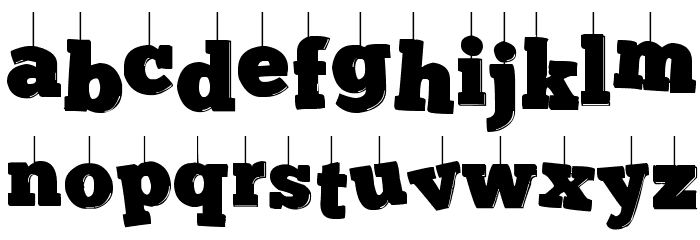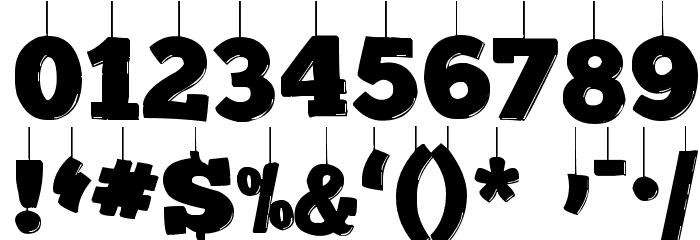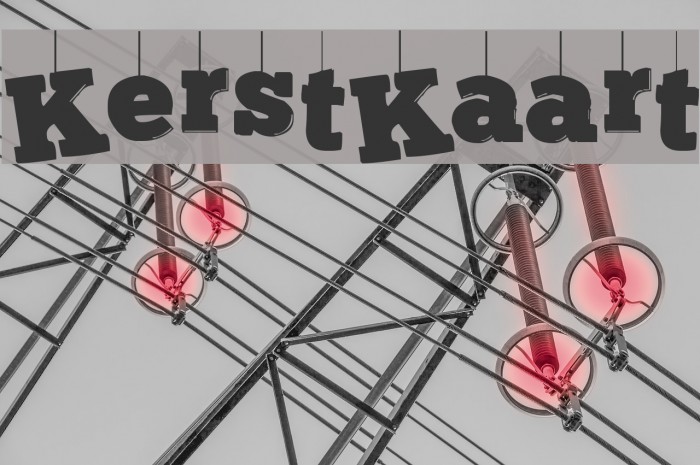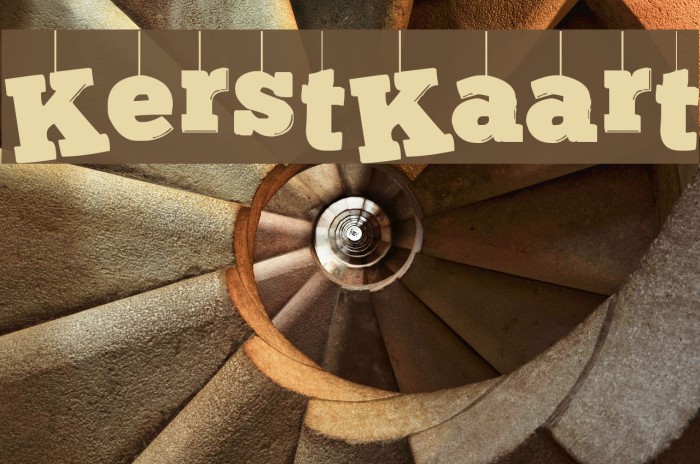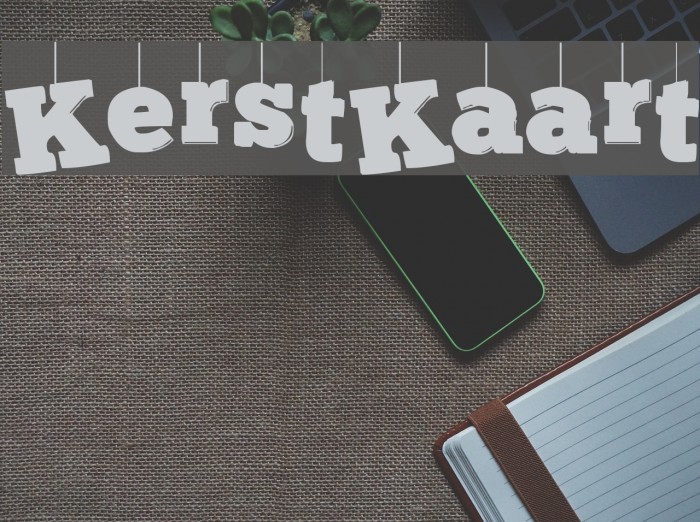
KerstKaart Font
This font features a bold and playful style with a distinct retro flair. The characters are heavily weighted, giving them a strong presence, while the slightly curved and exaggerated serifs add a whimsical touch. The uppercase letters are robust and commanding, while the lowercase letters maintain a consistent, rounded form that complements the overall design. The numerals are equally bold, ensuring readability and impact. Special characters are designed to match the font's playful aesthetic, making it suitable for creative and festive applications.
A bold, playful font with retro-inspired serifs and strong character presence.
- Proposed Projects: Ideal for holiday cards, playful branding, children's book covers, and festive event posters.
- Overall Style: Vintage